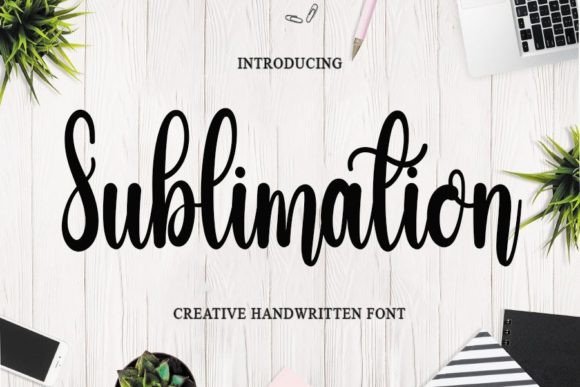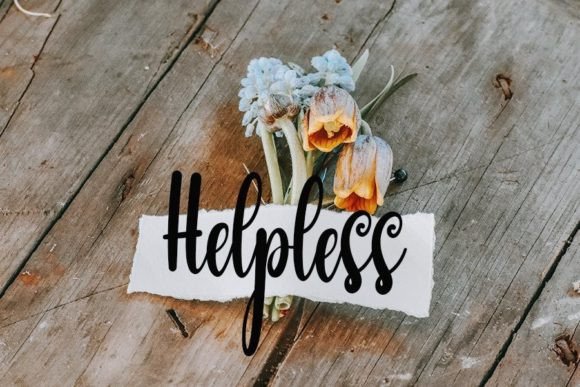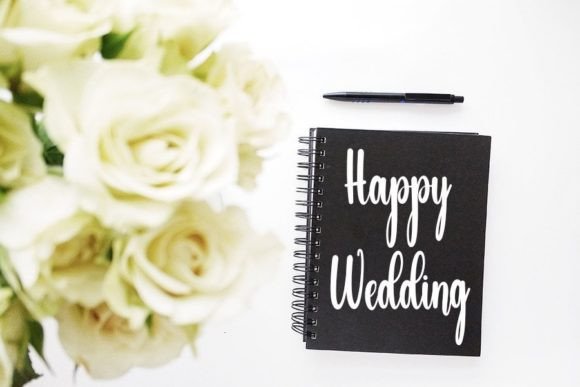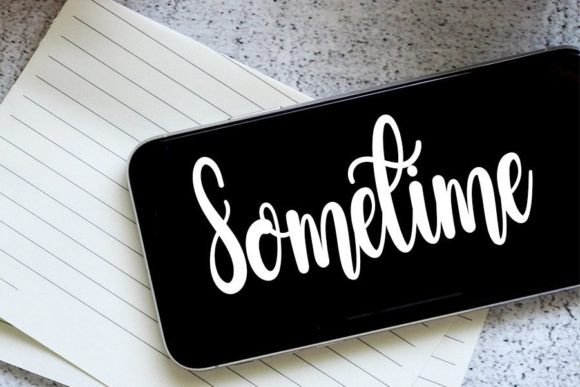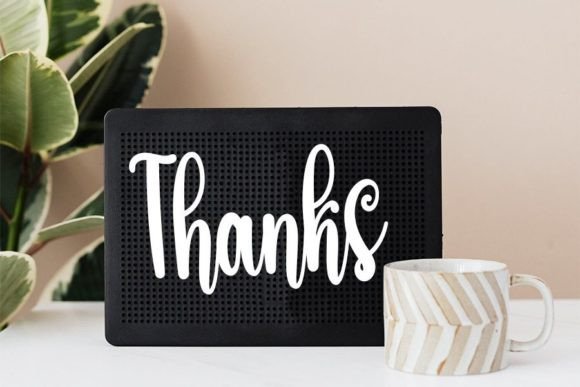
Sublimation Font
About Sublimation Font
Sublimation is a neat and beautiful handwritten font, defined by an elegant touch that makes it an excellent choice for a variety of projects. Its distinct and timeless style adds a touch of sophistication to your designs, allowing you to create spectacular and visually appealing outcomes.
The neat and beautiful characteristics of Sublimation make it versatile for a range of applications. Whether you’re working on branding, logos, invitations, or any creative project, this font is designed to enhance the overall aesthetic with its clean and elegant script.
Sublimation’s distinct and timeless style ensures its relevance across different design contexts. Its versatility allows it to seamlessly adapt to both formal and creative projects, maintaining its charm and elegance in various applications.
The elegant touch of Sublimation adds a sense of sophistication to your text, making it stand out with a refined appearance. This makes the font well-suited for projects that demand a touch of class and elegance, resulting in visually appealing and polished designs.
Sublimation is crafted to help you create spectacular designs, allowing you to appreciate its unique and timeless style. Whether you’re falling in love with the font for branding, logos, invitations, or any other creative endeavor, it offers a distinct and elegant script that elevates the visual impact of your designs.
In summary, Sublimation is more than just a font; it’s a design element that combines neatness, beauty, and elegance. Whether you’re working on branding, logos, invitations, or any creative project, this font brings a distinct and timeless style to the table, enabling you to craft spectacular and sophisticated designs with ease.